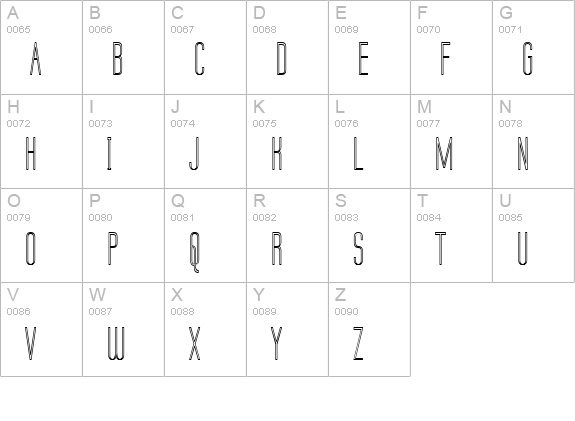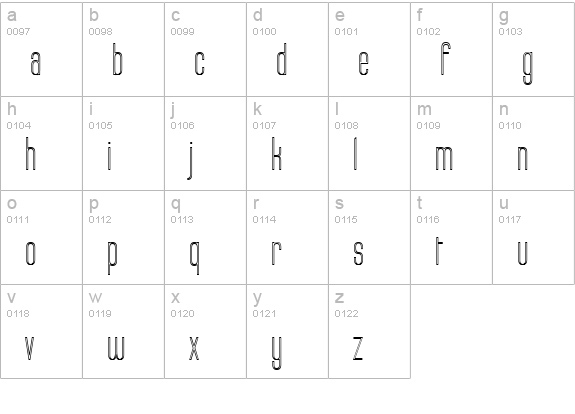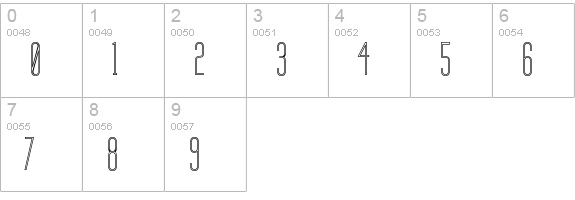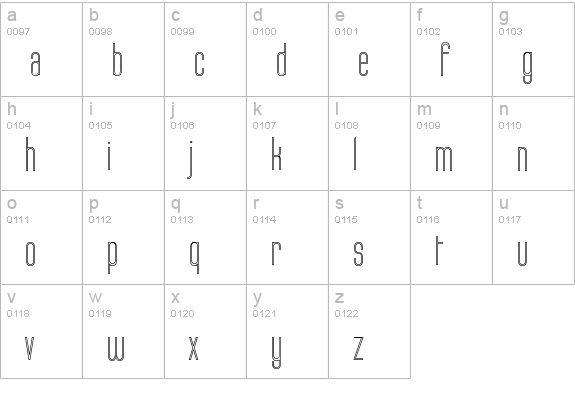
Introducing Labtop Outline font, a sleek and modern typeface perfect for any design project. This font features clean lines and a contemporary style that will make your text stand out. With its bold and edgy look, Labtop Outline is ideal for logos, headlines, posters, and more. What's even better is that Labtop Outline font is available for free download at FontsMarket.com! You can easily access this versatile font and use it in your personal or commercial projects without any restrictions. Don't miss out on this amazing opportunity to enhance your designs with Labtop Outline font today!